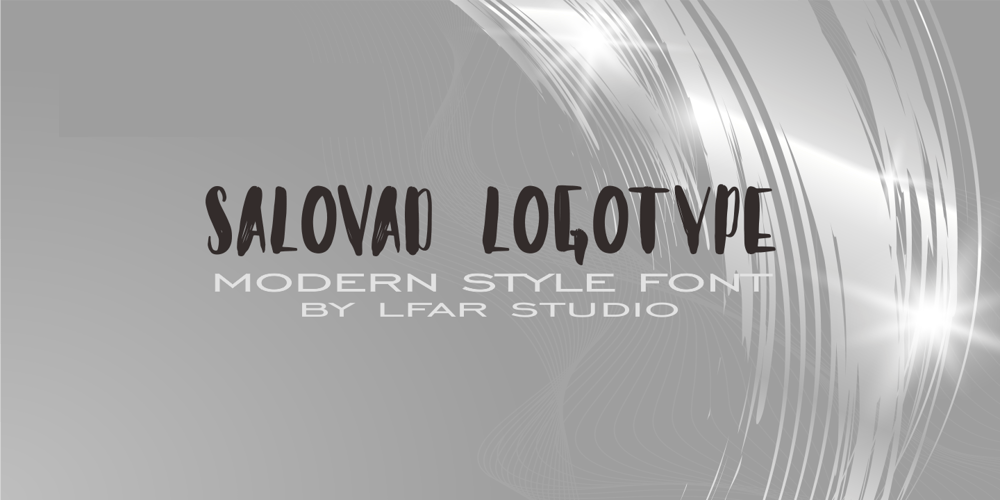
Salovad Logo Type Font Family was designed by Lalan Farlan and published by LfarStudio. Salovad Logo Type contains 1 styles and family package options. Hi…Thank for your visit :)Salovad logotype is a sans serif with brush, featuring a simple style and unique feel. This font suitable for social media posts, advertisements, decoration, logos, movie title and more!Happy design..